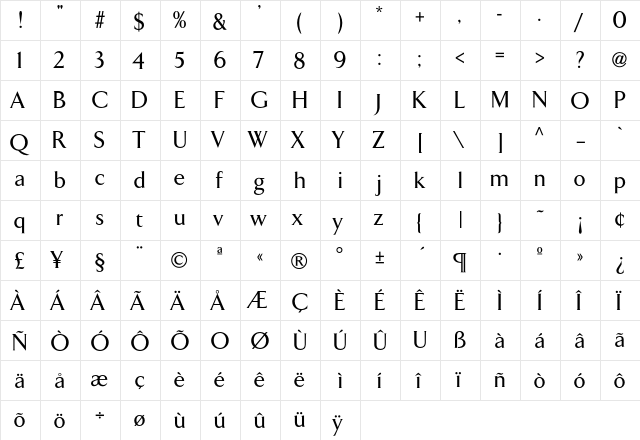
ArrowMedium Regular
Design Context for ArrowMedium Typeface
ArrowMedium takes a measured approach to typography — its balanced proportions and neutral character make it a reliable workhorse for both digital and print work.